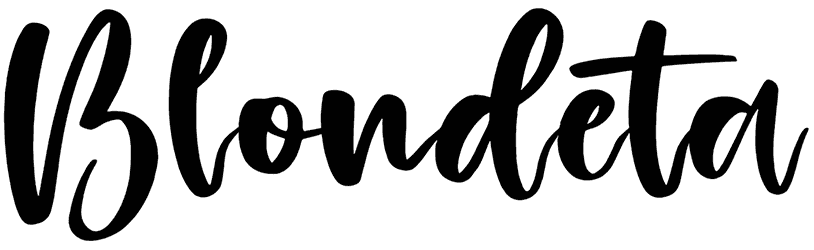
Blondeta Font
Blondeta is designed with bold and marker-written characters and can transfer your texts or headlines into something cool, casual, and, as you can guess from its look, youthful.
You can use this script font for drama and high school movie titles, channel banners, gaming, and movie headlines. The letters are designed to form a continuous style when they are put together in words, and the font offers two styles in its file.